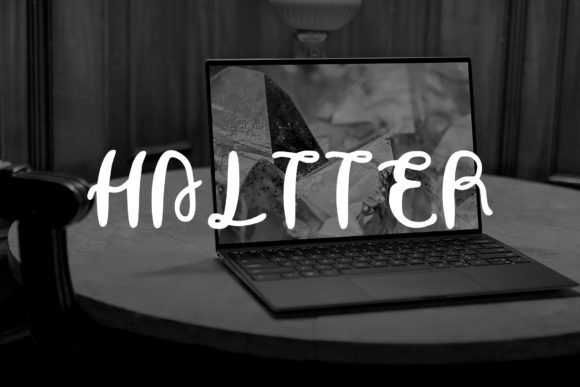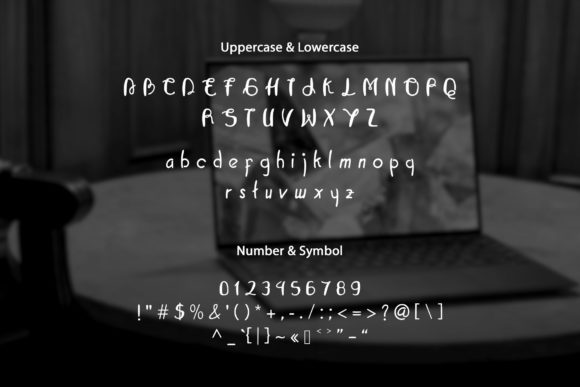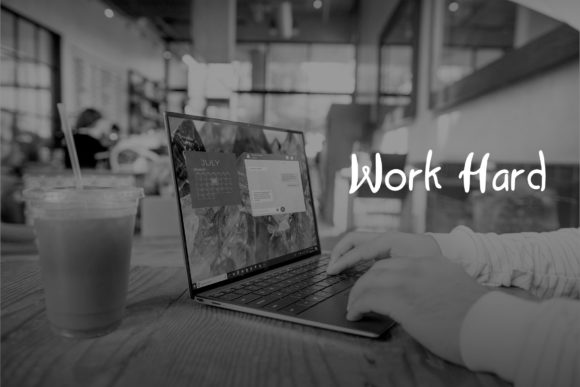
Introduction to Haltter Font
You know that moment when you’re brainstorming a creative project and you need the perfect design resource to bring your vision to life? For many designers, it’s a search for the right font that sets the tone for the entire project. I recently stumbled upon the Haltter Font, and I couldn’t wait to dive in and explore its possibilities.
As a designer, you understand the importance of having a versatile and high-quality font that can elevate your designs. The Haltter Font is a trendy and casual handwritten font that works wonders on various design ideas, from letters to invitations, cards, or posters. With its unique charm and flexibility, the only limit is your imagination.
Whether you’re working on a personal project or a client’s request, having access to a reliable design resource like the Haltter Font can be a game-changer. And the best part? It’s available for free download with a transparent background, making it easy to integrate into your designs. In this article, we’ll delve into the world of the Haltter Font and explore its potential as a valuable design resource.
Key Features of Haltter Font
- Unique and Creative Design: Haltter Font offers a distinctive and creative design that can add a touch of personality to any project.
- High-Quality Images: The font is designed to provide high-quality images with a transparent background, allowing for easy integration into various design projects.
- High Resolution: The font is designed at a high resolution, making it suitable for use in large-scale designs and prints.
- Easy to Use: The font’s design and layout make it easy to use, even for designers who are not experts in font design.
Honest Review: Haltter Font
I recently stumbled upon the Haltter Font, and I must say it’s a unique addition to my design resource library. As a designer, I’m always on the lookout for high-quality fonts to elevate my creative projects.
What works well with the Haltter Font is its versatility. The font comes with a transparent background, making it easy to customize and integrate into various design elements. The high-quality design is also noticeable, with clear and crisp lines that make it perfect for both digital and print materials.
Here are some of the features that I love about the Haltter Font:
- ✨ Unique and creative design
- ✨ High-quality design with clear and crisp lines
- ✨ Transparent background for easy customization
- ⚠️ Limited font variations (only a few weights and styles available)
- ⚠️ May not be suitable for large-scale text or headings
Overall, I’m impressed with the Haltter Font and its potential to add a creative touch to my design projects. While it may have some limitations, its unique design and high-quality construction make it a valuable resource in my design library.
The Haltter Font is a versatile design resource ideal for creative projects that require a unique and eye-catching visual element. This high-quality font is available for free download, making it an excellent choice for designers and non-designers alike.
Tips for Getting the Most Out of Haltter Font
To get the most out of the Haltter Font, try the following:
- Experiment with different font sizes and colors to create a unique visual effect.
- Combine the Haltter Font with other design elements, such as images and graphics, to create a cohesive design.
- Use the font on a transparent background to add a touch of elegance to your design.
The Haltter Font is perfect for:
- Creating eye-catching social media graphics and ads.
- Designing professional-looking presentations and documents.
- Adding a unique touch to your website or blog.